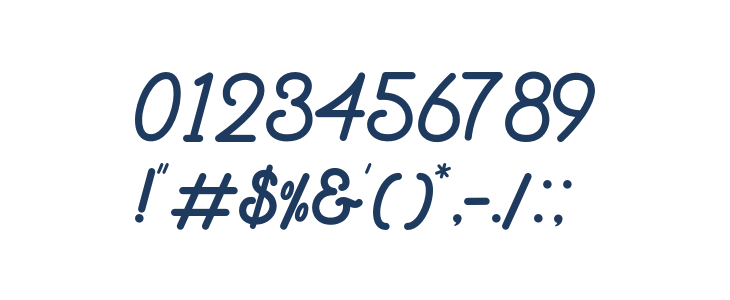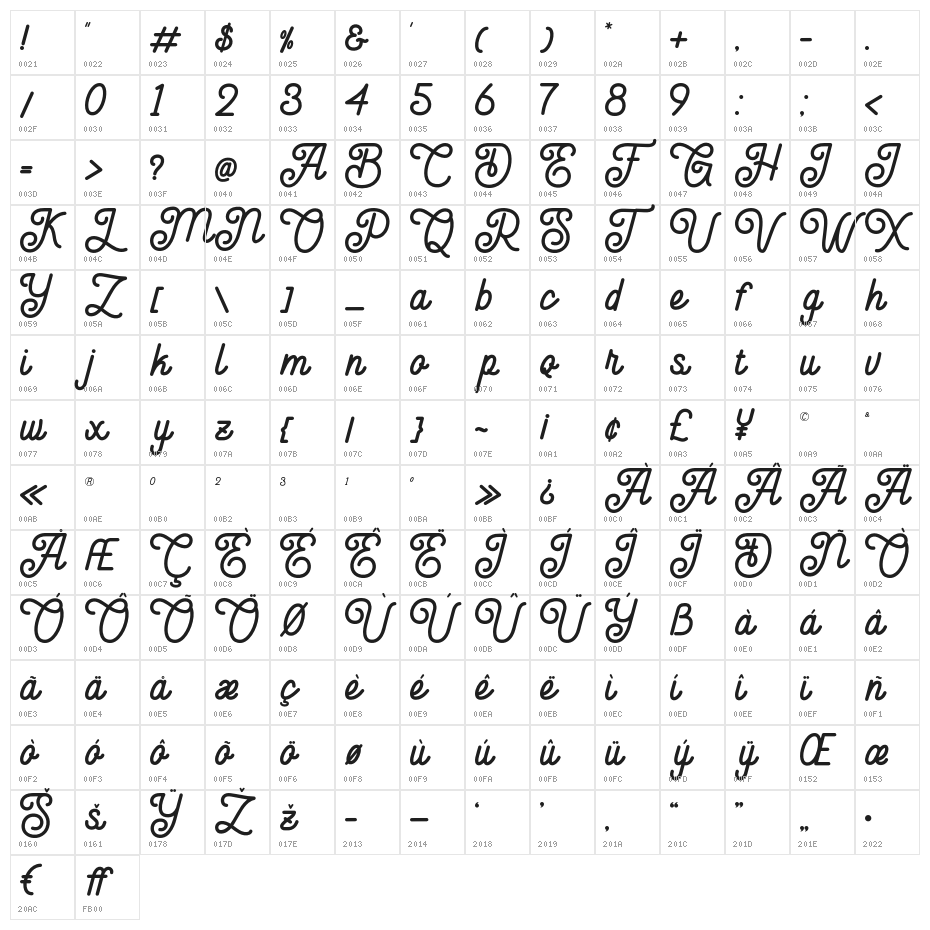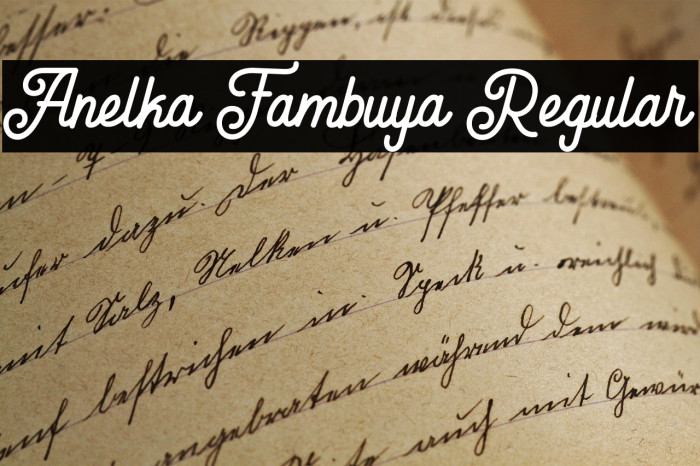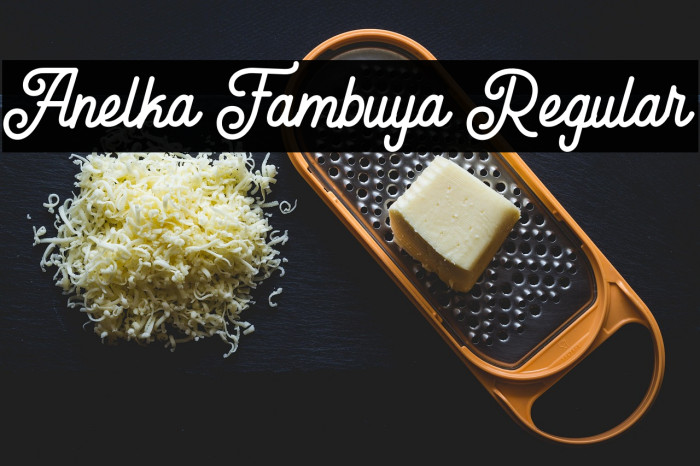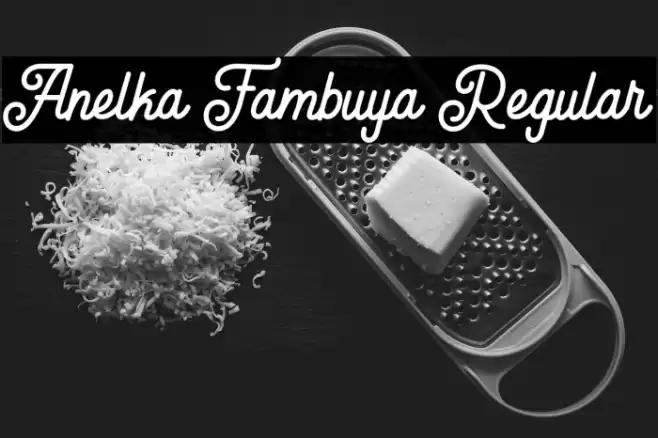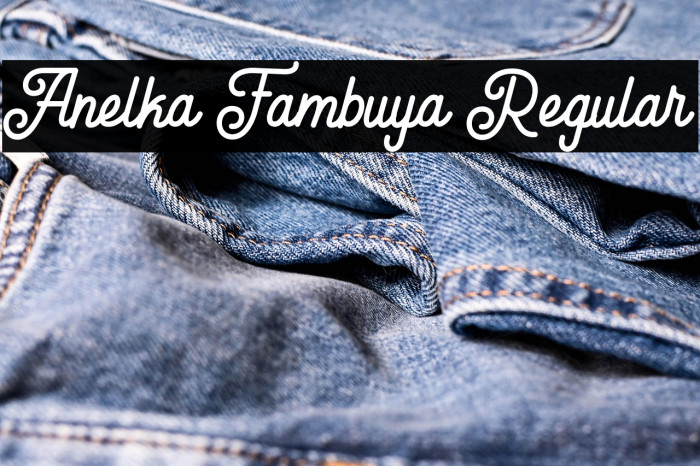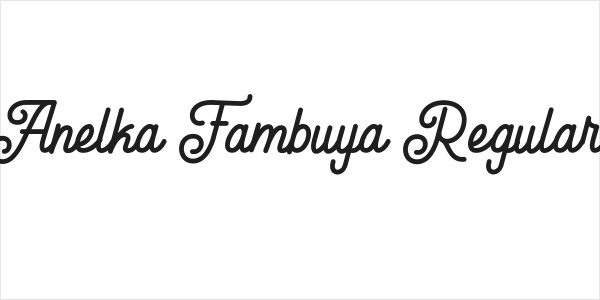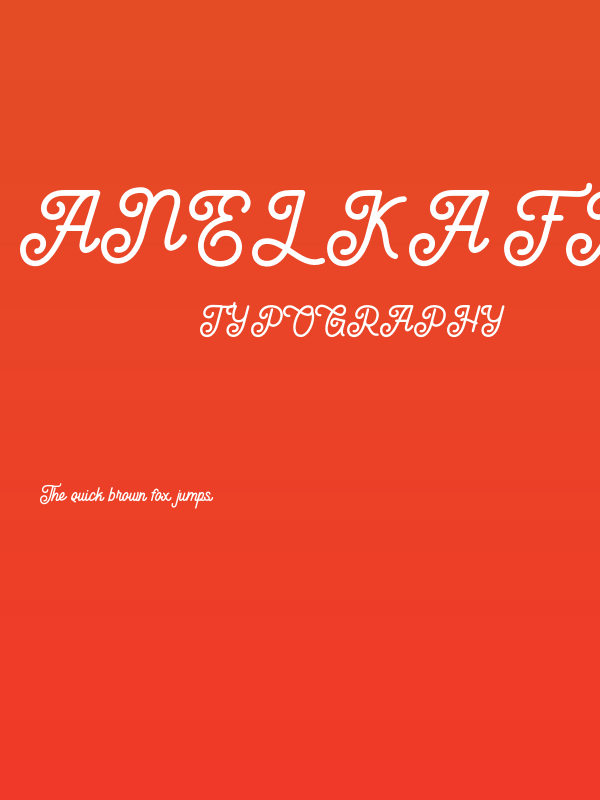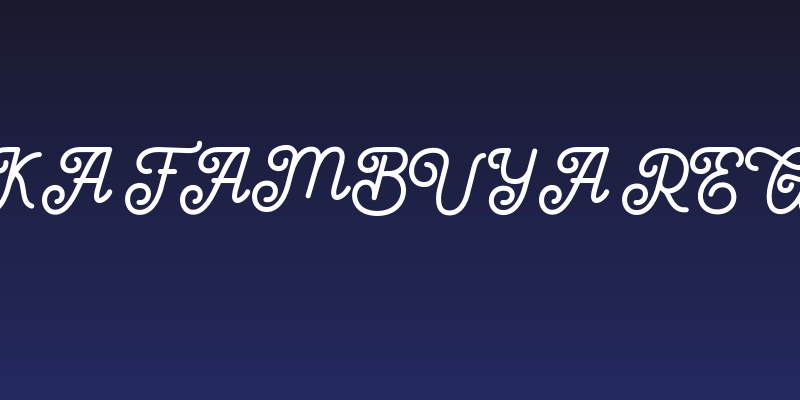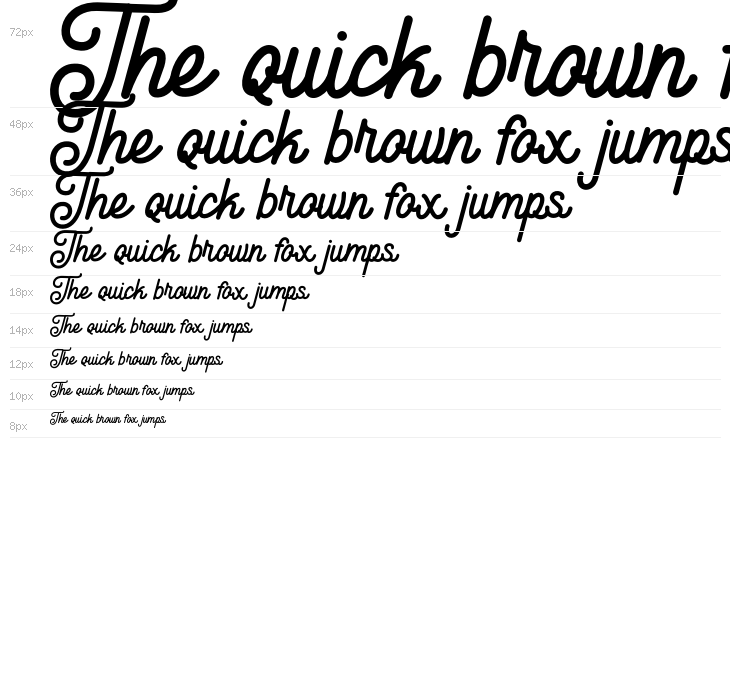
Anelka Fambuya Regular Font
Anelka Fambuya Regular Description
This font features a playful and elegant script style with a flowing, cursive design. The uppercase letters are characterized by their decorative swirls and loops, adding a touch of sophistication and charm. The lowercase letters maintain a smooth and connected appearance, enhancing readability while retaining a stylish flair. Numbers and special characters are crafted with the same attention to detail, ensuring consistency across all glyphs. The overall design is reminiscent of handwritten calligraphy, making it suitable for projects that require a personal and artistic touch.